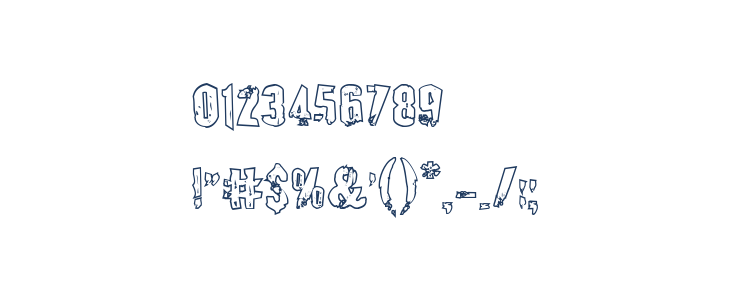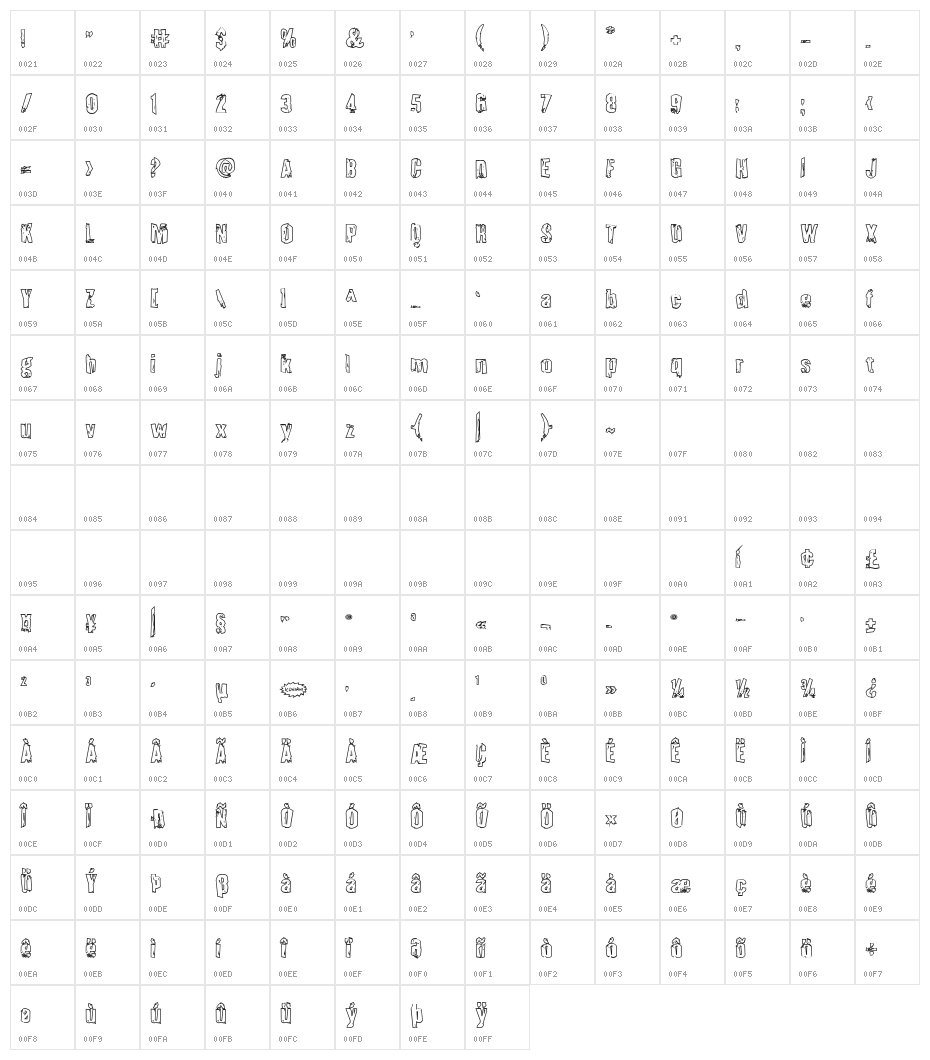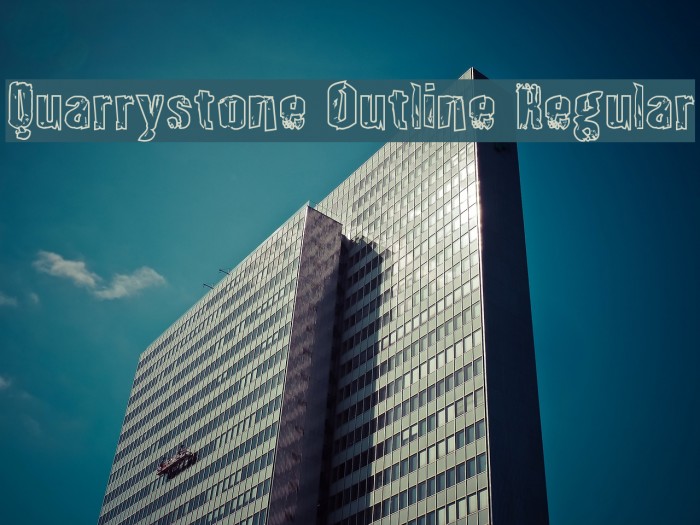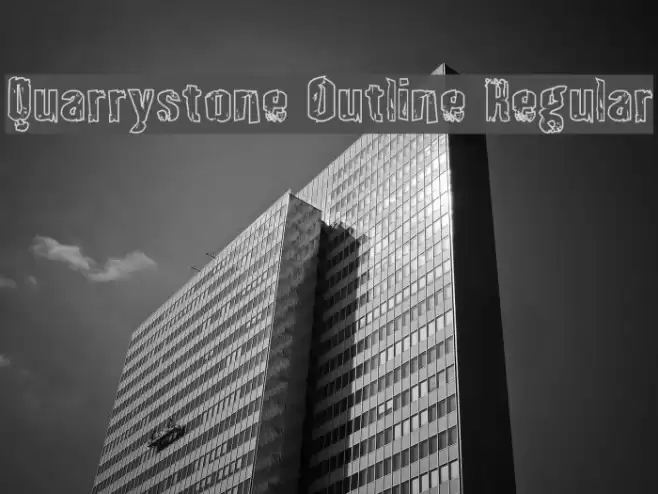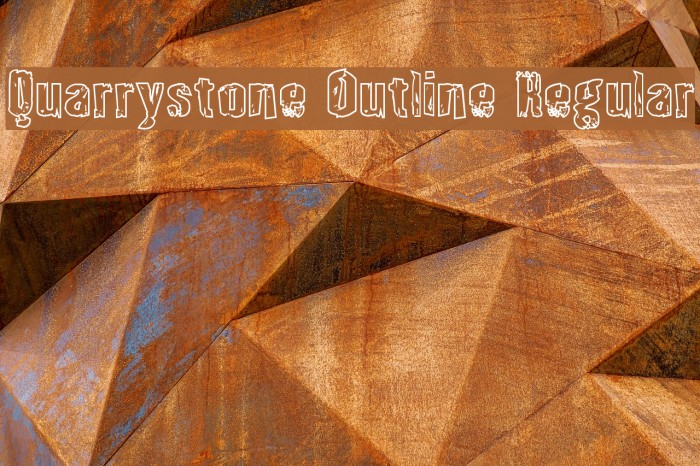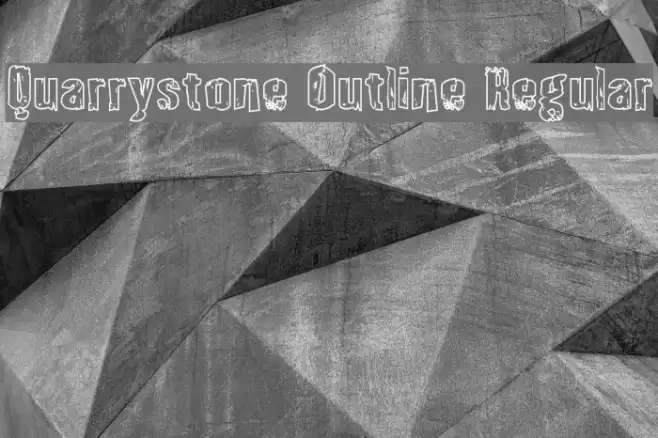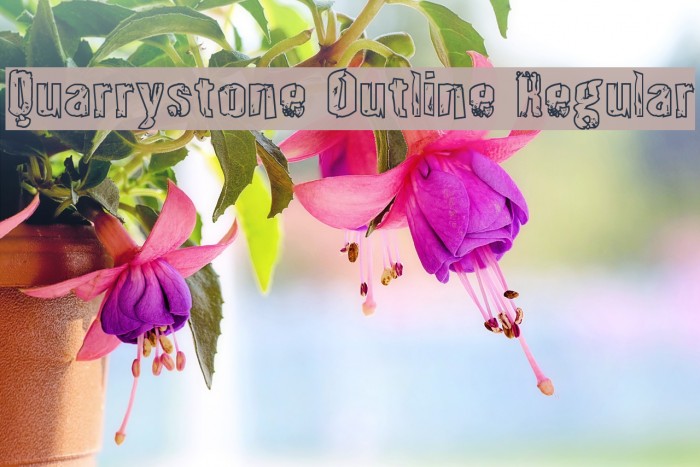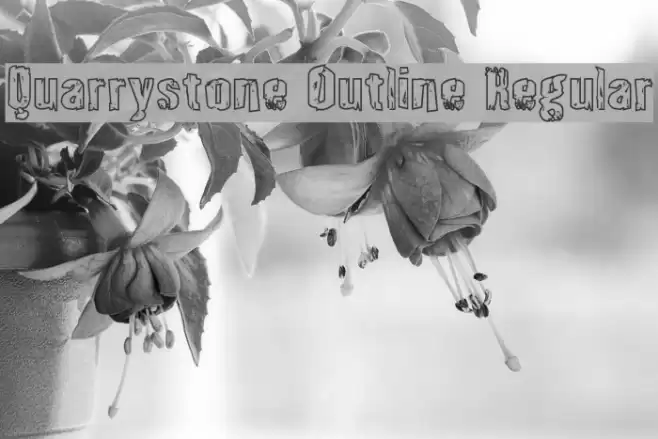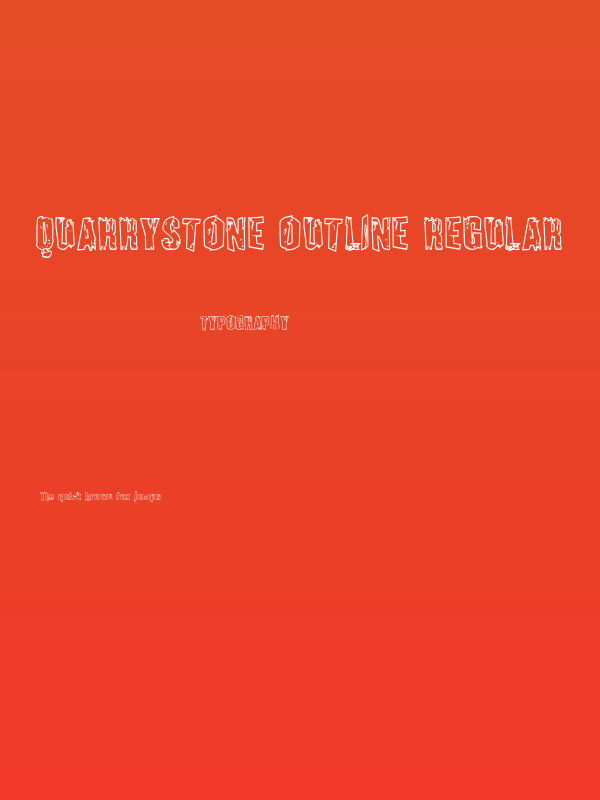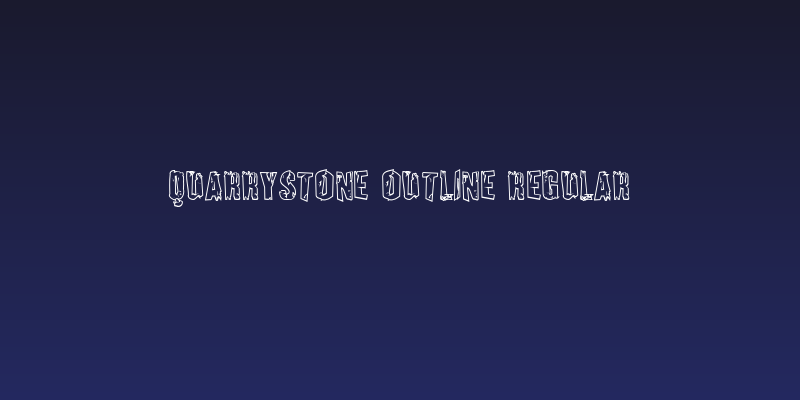
Quarrystone Outline Regular Font
Quarrystone Outline Regular Description
This font features a rugged, distressed outline style that gives it a unique, weathered appearance. The characters are bold and impactful, with an irregular texture that suggests erosion or decay. This design choice adds a sense of depth and character, making it ideal for projects that require a gritty or vintage aesthetic. The uppercase and lowercase letters maintain a consistent style, with numbers and special characters following suit. The overall look is both artistic and bold, suitable for creating eye-catching headlines or logos.
| Proposed Projects | Ideal for posters, album covers, branding for outdoor or adventure-themed products, and any design needing a vintage or gritty touch. |